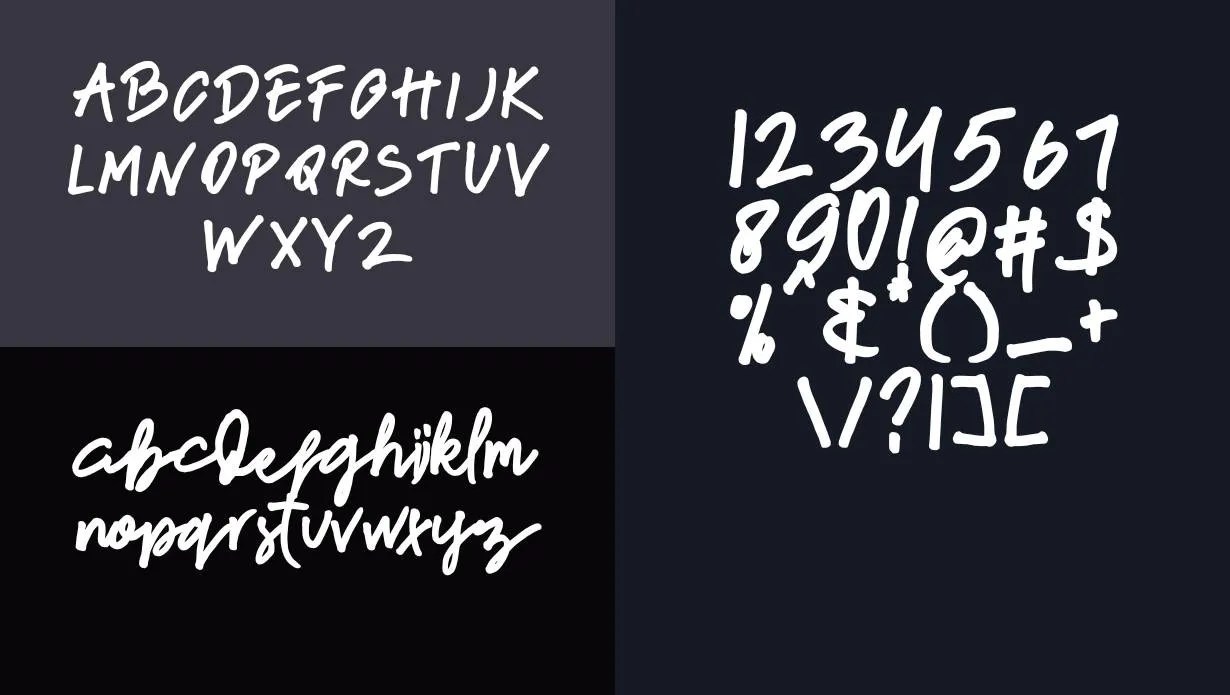
The New French Font is a fresh and modern take on classic French typography. With its clean lines and contemporary style, it’s versatile and suitable for a wide range of design projects.
Whether you’re designing a menu for a French bistro or creating marketing materials for a fashion brand, the New French Font offers a touch of sophistication and a modern twist.